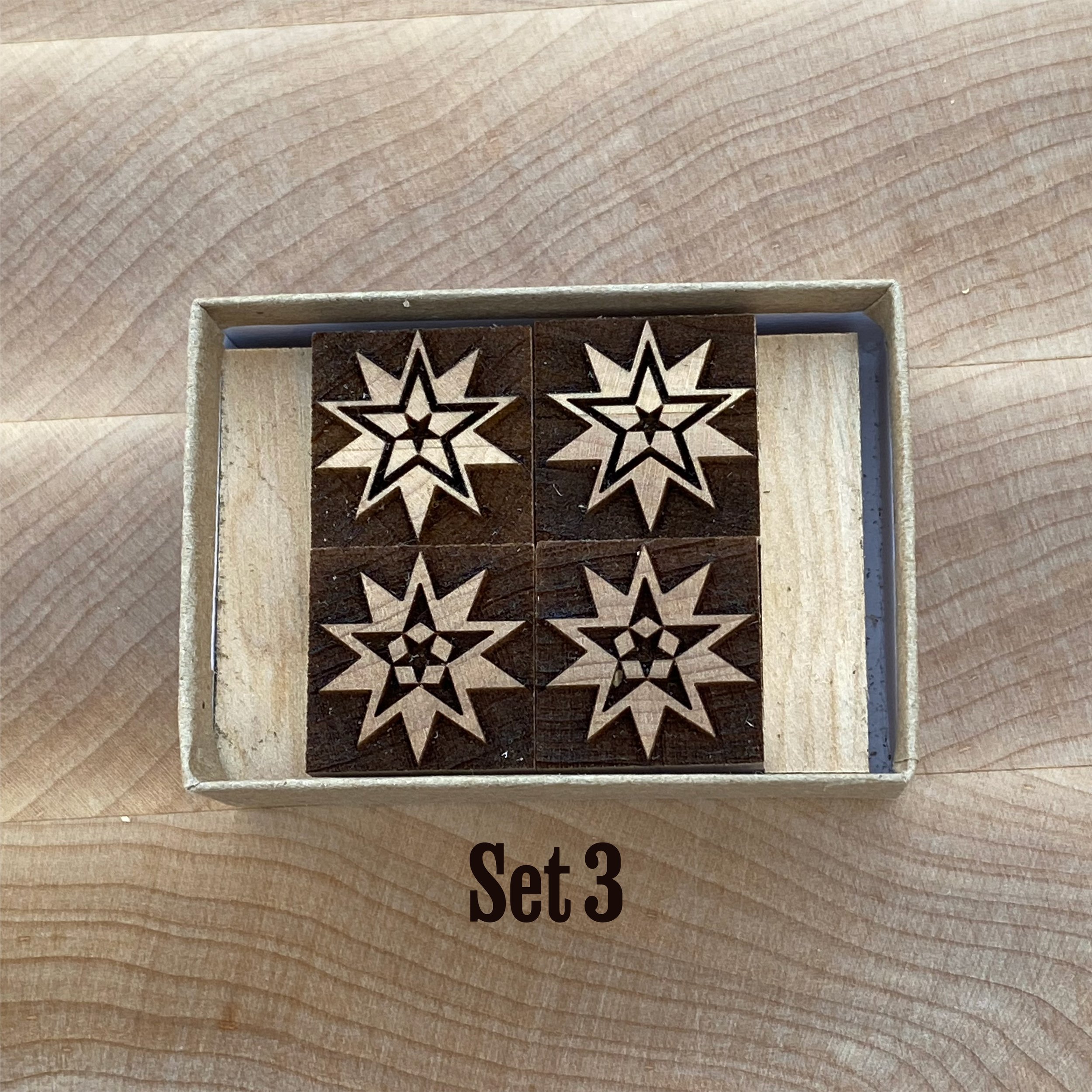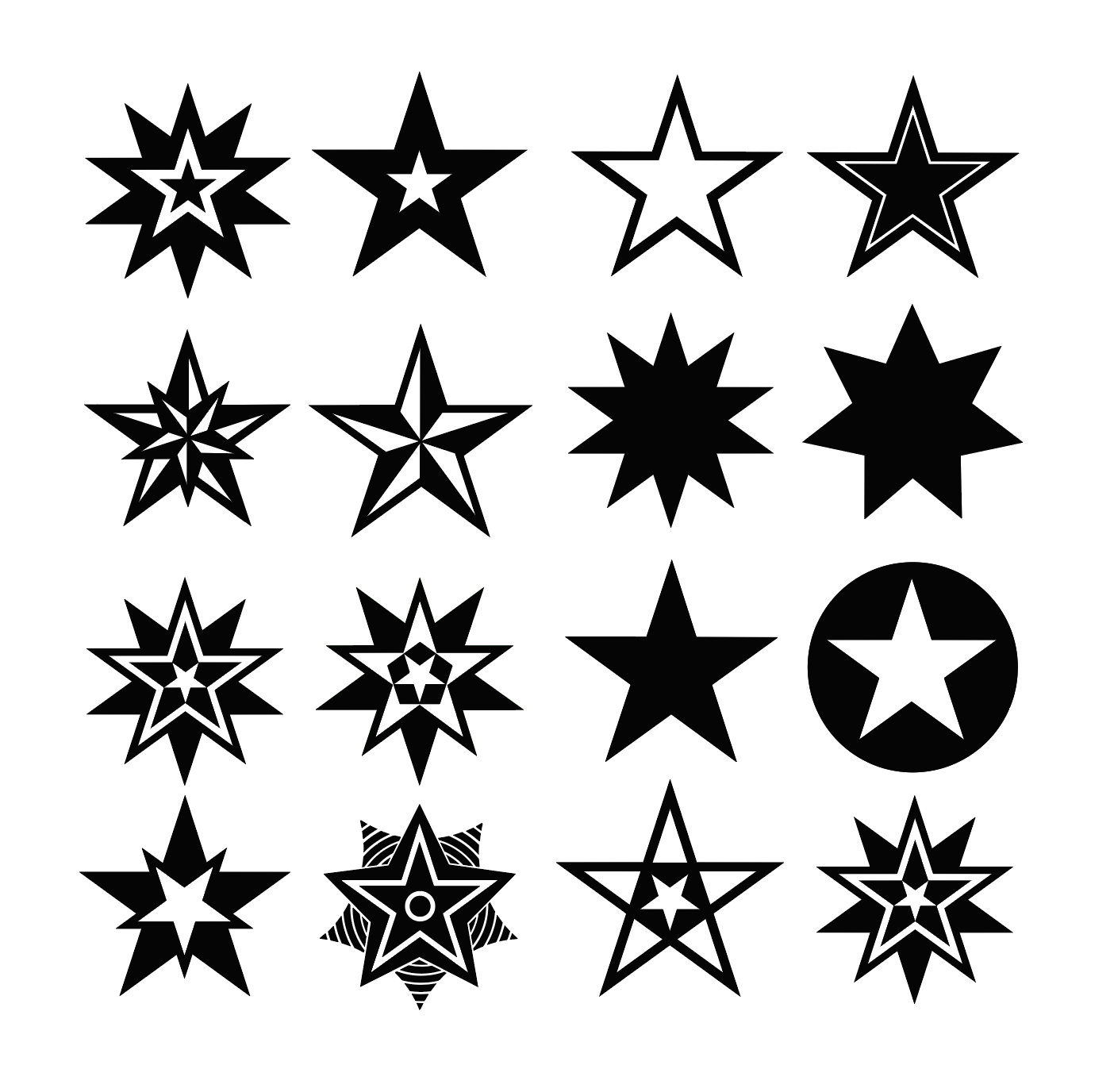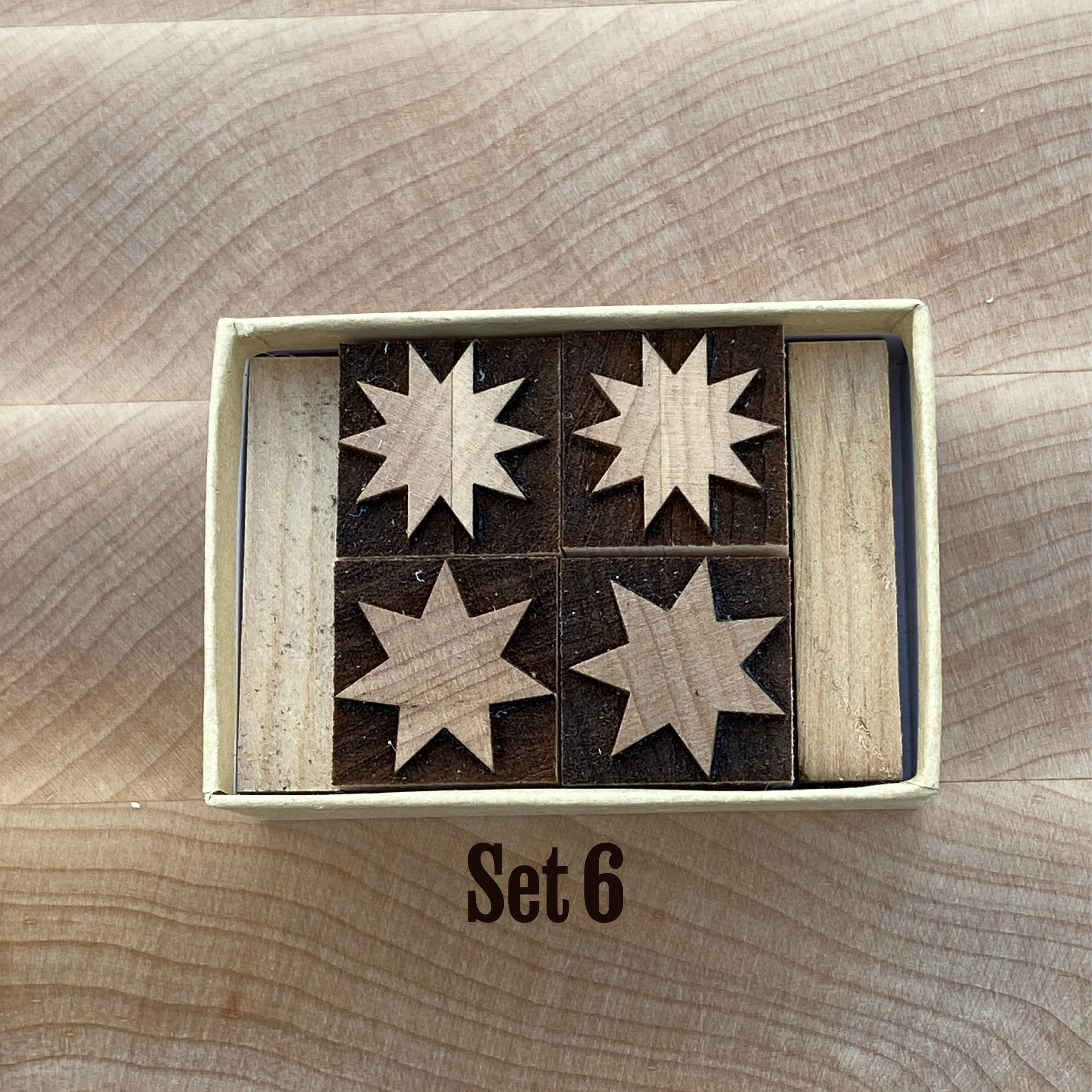
This collection of stars includes both historic and modern designs. Some are Moore Wood Type classics, crafted by Scott for more than a decade, while others are brand new. All are laser-cut from carefully prepared, type-high (.918") sugar maple.